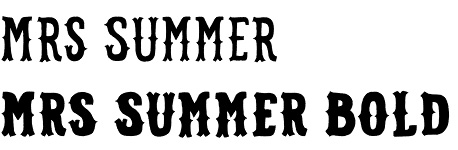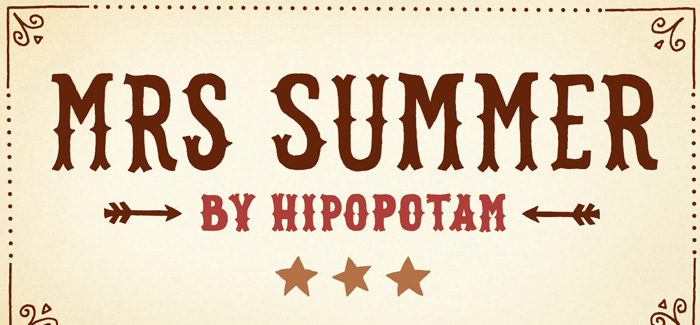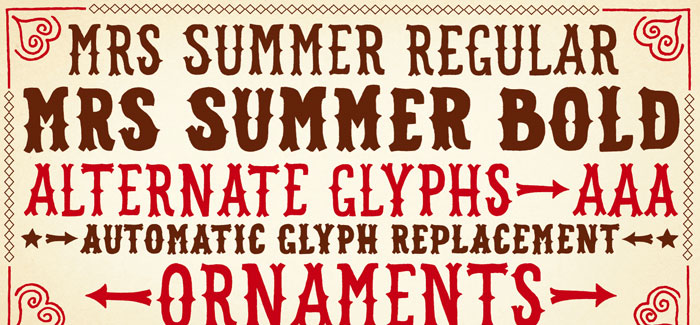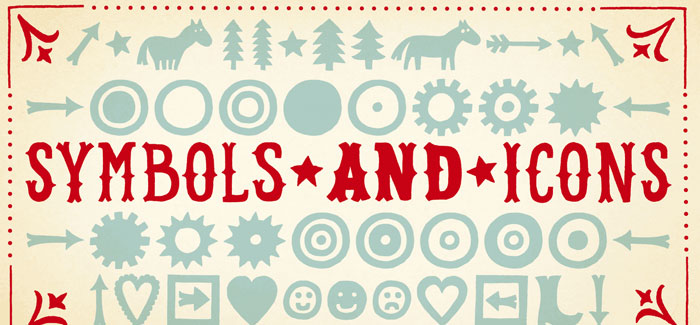
Mrs Summer font
Mrs Summer font is a hand drawn narrow typeface with a Western touch. It has only uppercase characters with alternate glyphs in place of lowercase letters and additional alternate glyph in a Stylistic Set. It has build in OpenType Contextual Alternates feature that will automatically set alternate glyphs depending on frequency of appearance of the same character (even in web font but only in HTML5 browsers). The script doesn’t just throw random glyphs.
Additionally Mrs Summer is filled with ornaments, arrows, stars, horses, trees and a lot of other symbols.